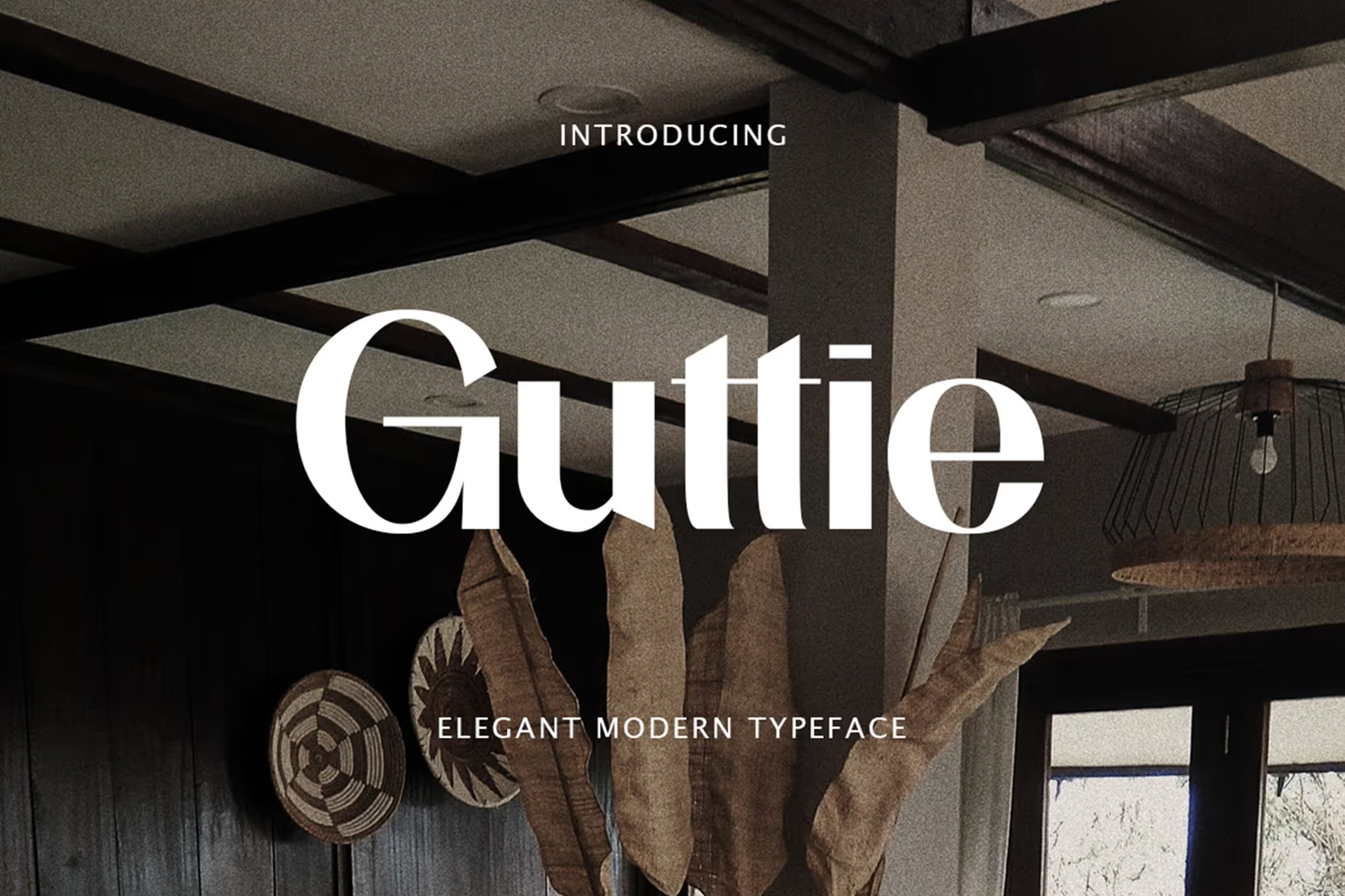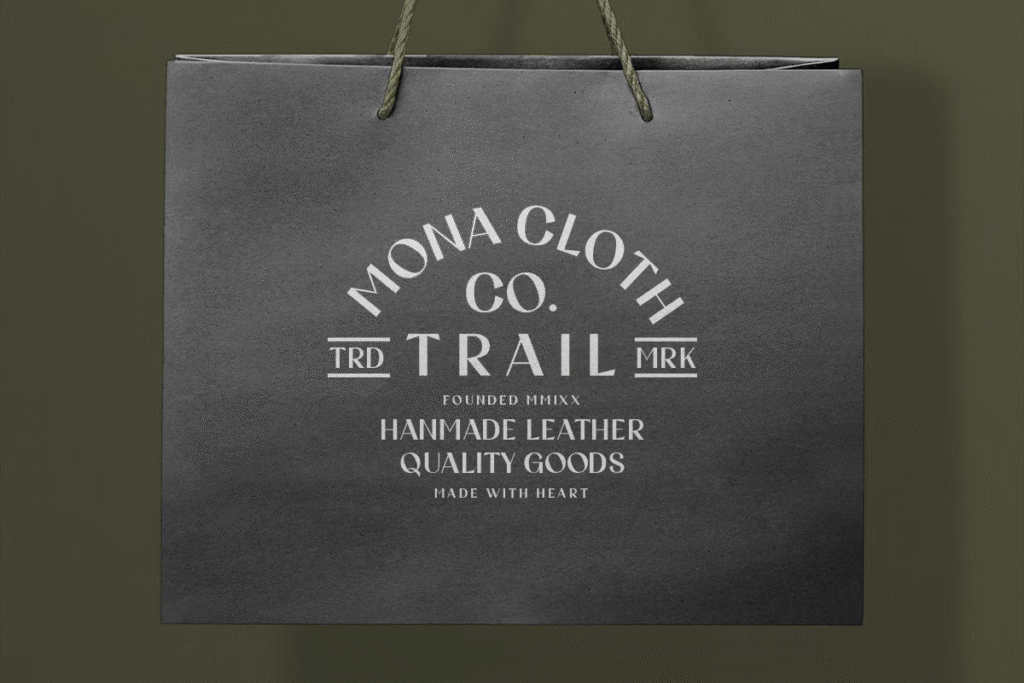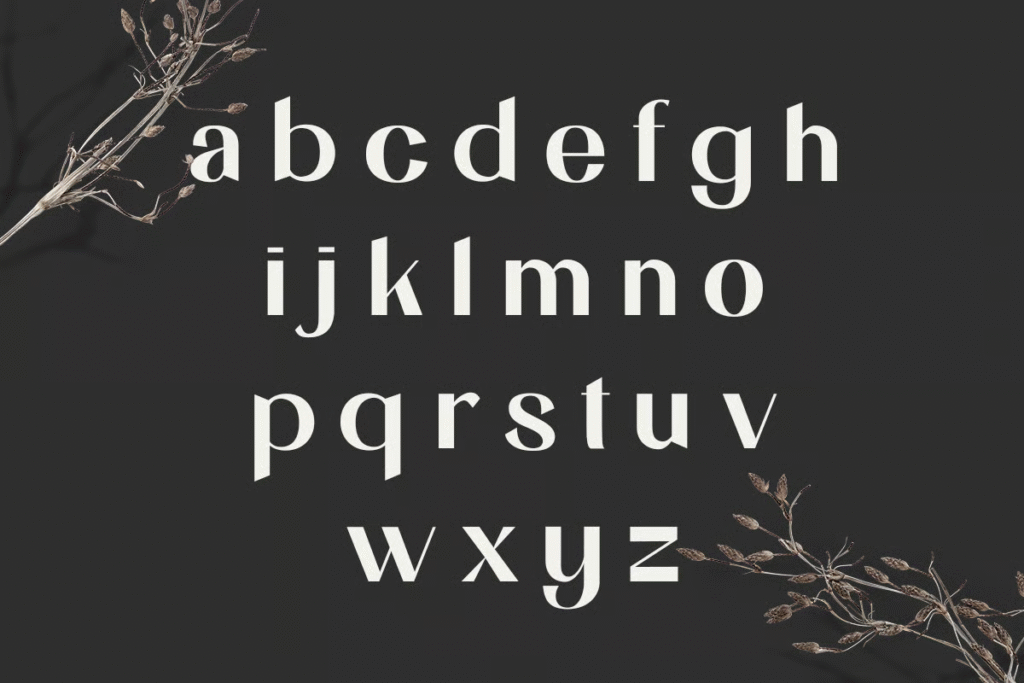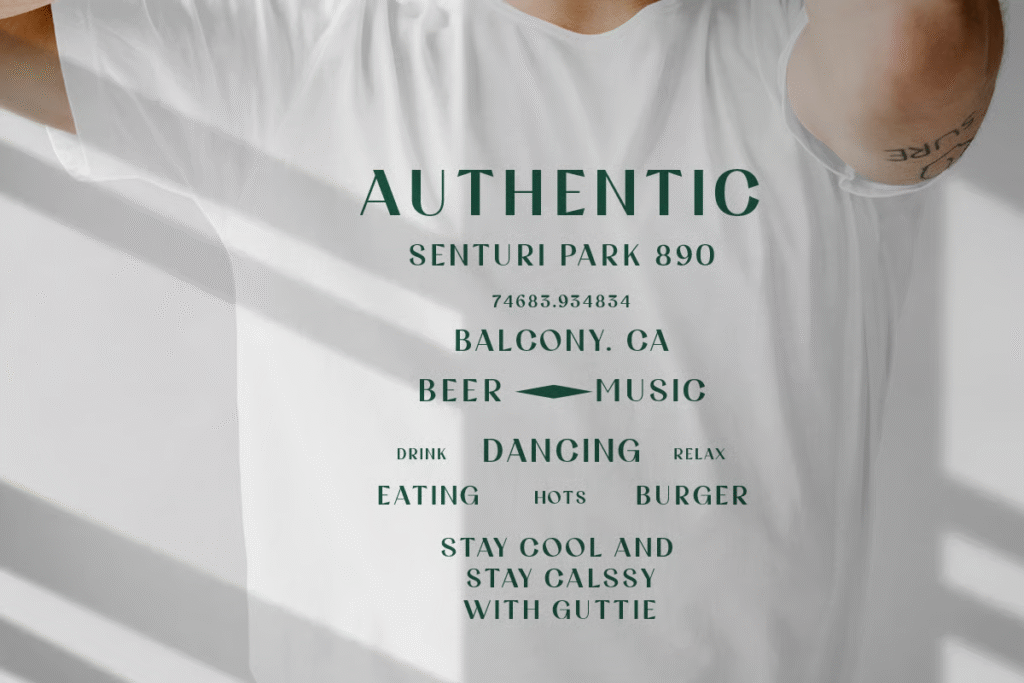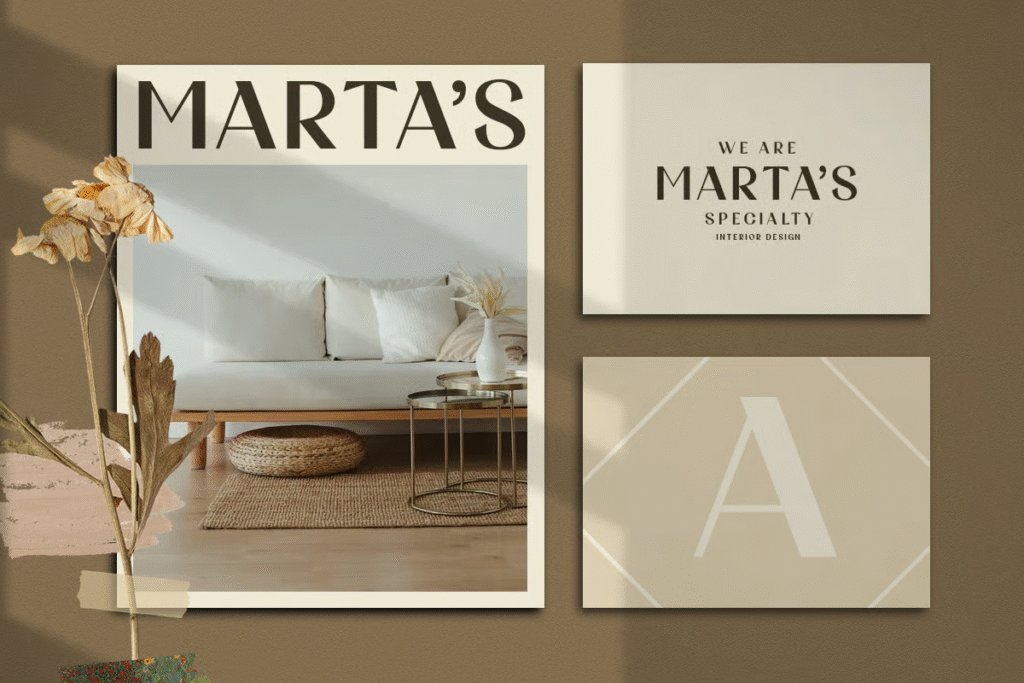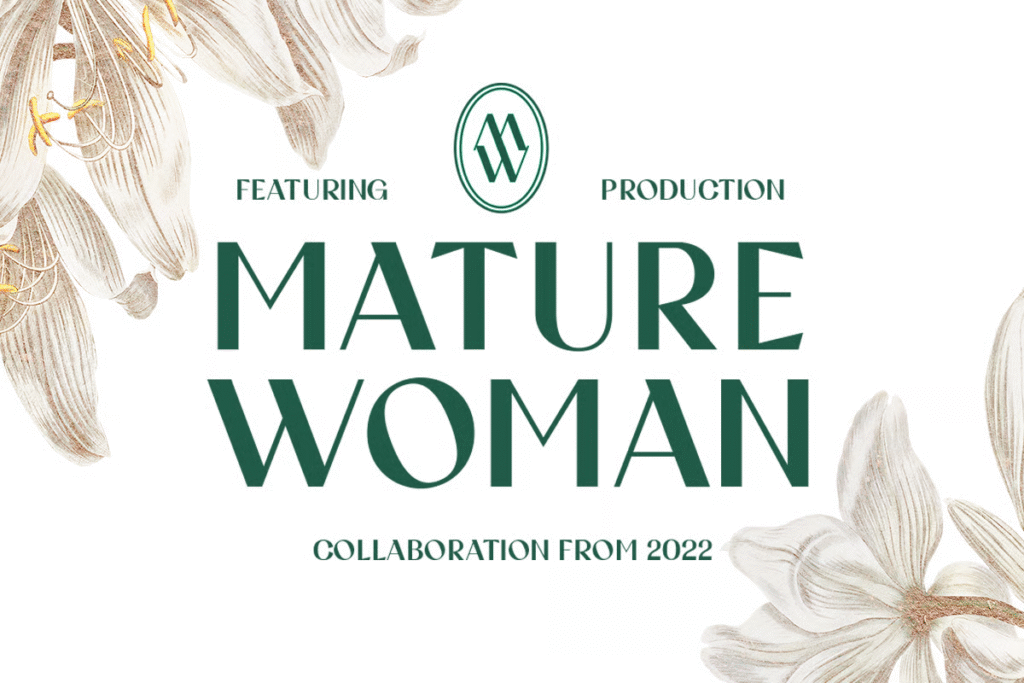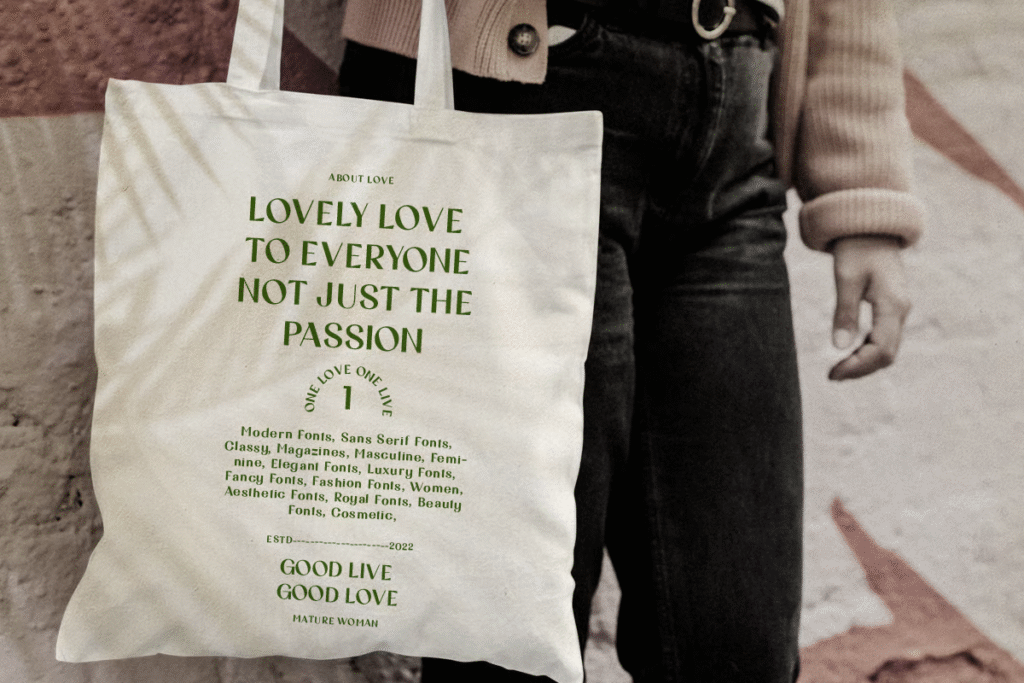
Guttie Elegant Modern Font
Guttie Elegant Modern Typeface – elegant modern serif font for luxury branding
Guttie Elegant Modern Font – refined typography with smooth curves
Guttie Font – luxury-inspired serif typeface for premium branding
Guttie Elegant Modern – modern serif typography perfect for editorial layouts
Guttie Typeface – sophisticated letterforms for stylish design projects
Guttie Elegant Modern Font – elegant serif with visual clarity and usability
Guttie Font – modern typography suited for packaging and identity design
Guttie Elegant Modern is a refined typeface that blends visuals with functionality. Designed for clarity and sophistication, it helps convey information, shape perception, and evoke emotion with ease. Featuring smooth curves, elegant letterforms, and a luxurious aesthetic, this font is perfect for branding, editorial, packaging, and high-end digital experiences. With OTF and TTF formats included, Guttie delivers usability and style for impactful design projects.
• Fonts can be read from a much larger distance than regular fonts
• Elegant letters give the impression of luxury
• Smooth curves for elegant typography
Guttie Elegant Modern Font
Guttie Elegant Modern is a stylish typeface with smooth curves and refined details, perfect for luxury branding, editorial design, and modern communication.